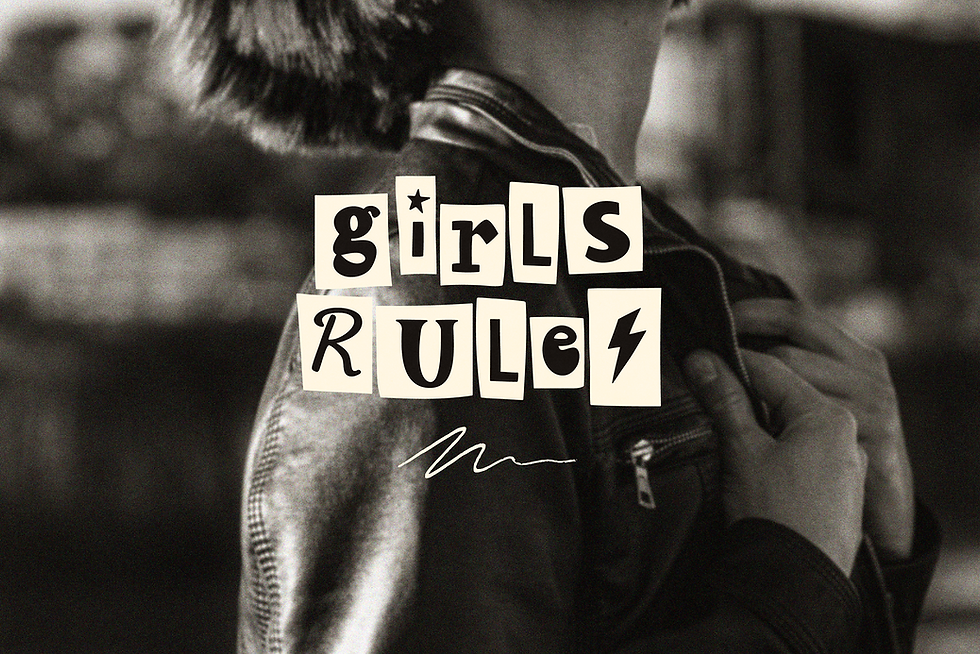
POSITVE QUOTES is a cute Ransom cutout font.
β Most accent characters included
β· Use the 10 symbols included to make cute compositions.
- Bullet symbol β’ β Stars
- Period centered symbol Β· β Small Heart
- Bar symbol | β Lowercase βiβ with a heart
- Left Curly Bracket { β Moon
- Right Curly Bracket } β Lightning
- Left square bracket [ β Big Heart
- Right square bracket ] β Peace symbol
- Logical Not Β¬ β Lowercase βiβ with a star
- Greater β Star
- Less β Flower